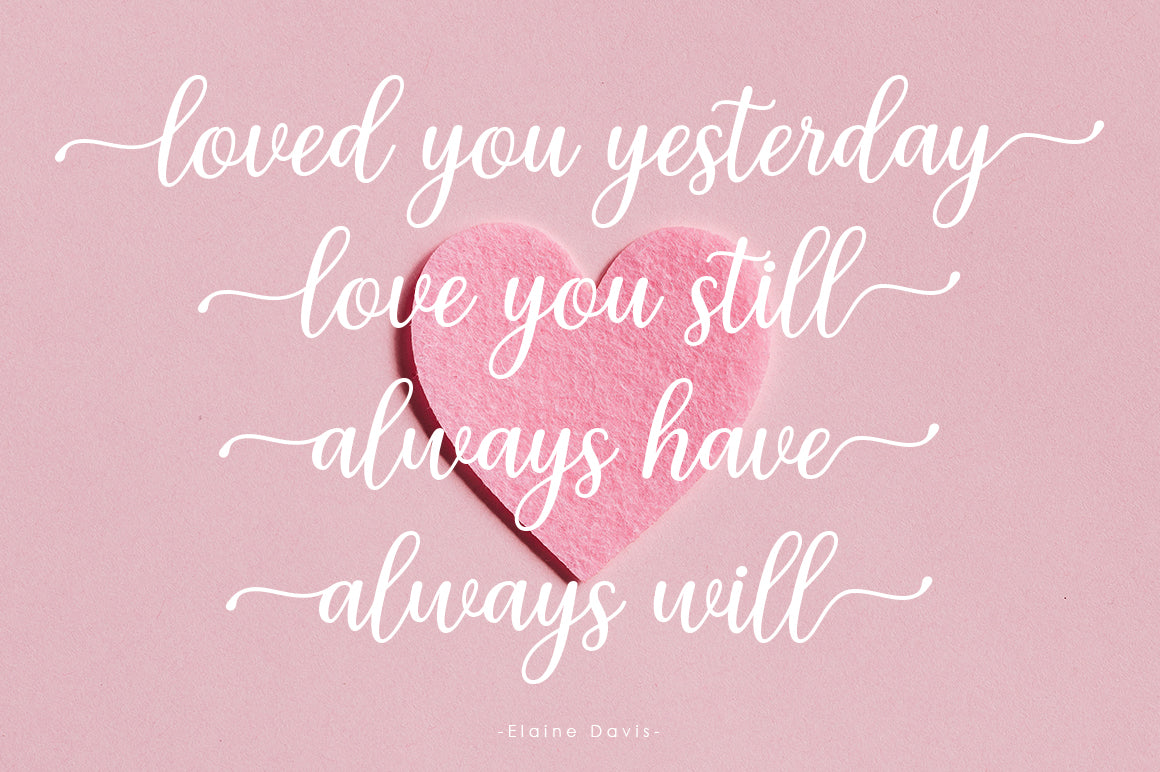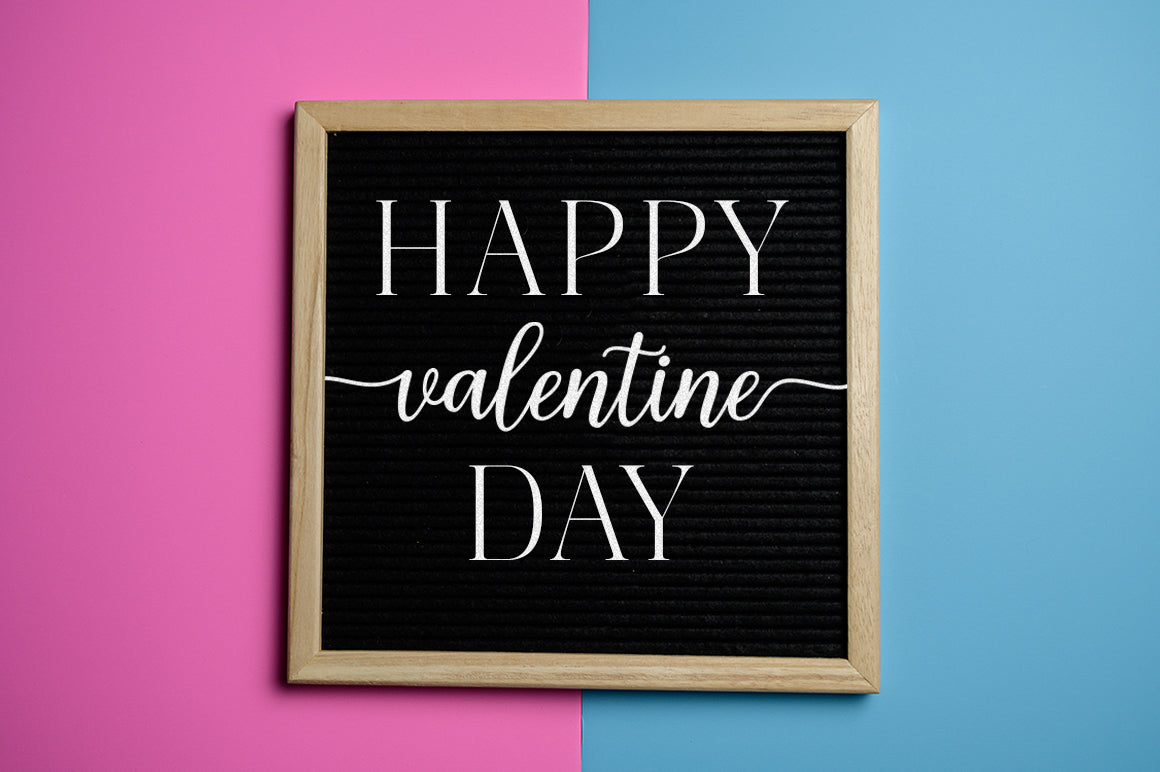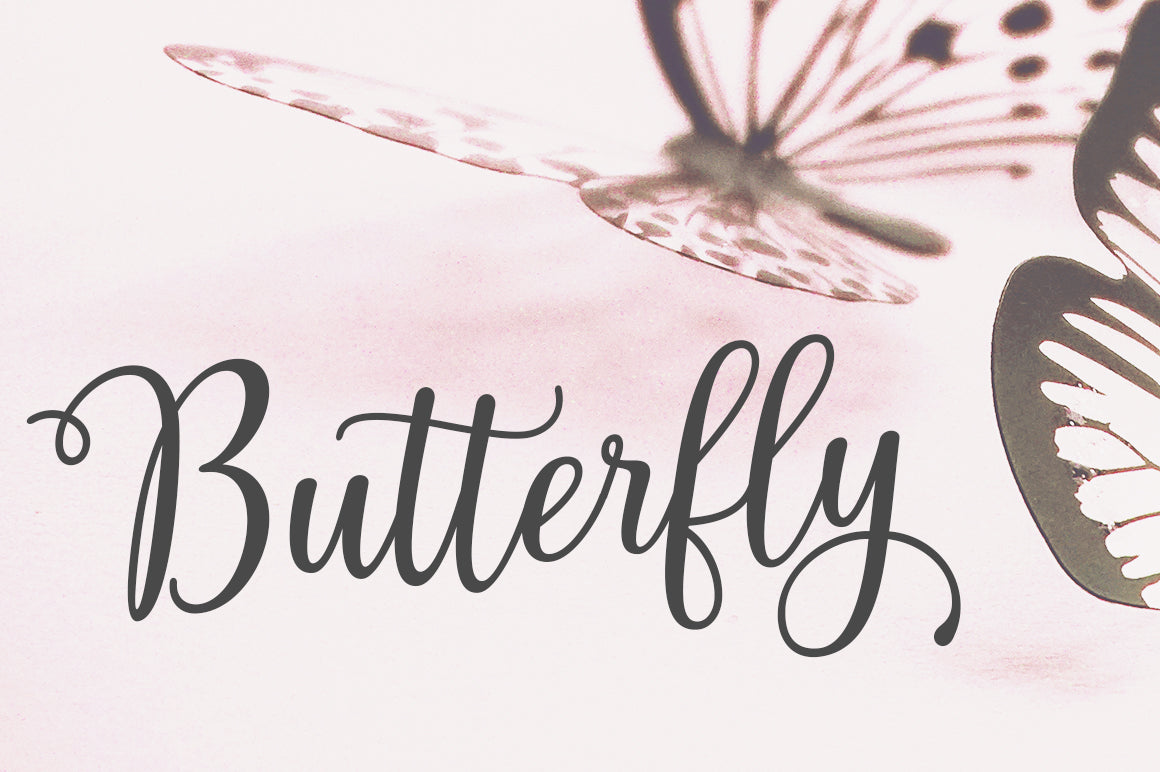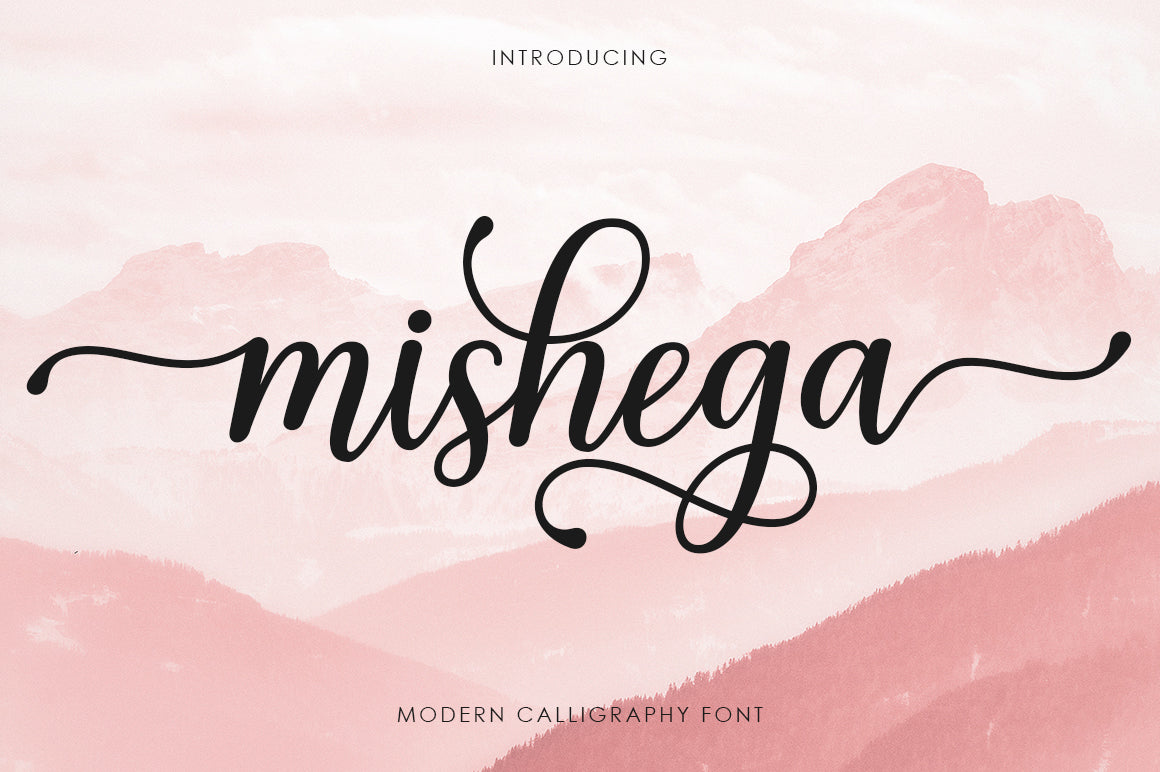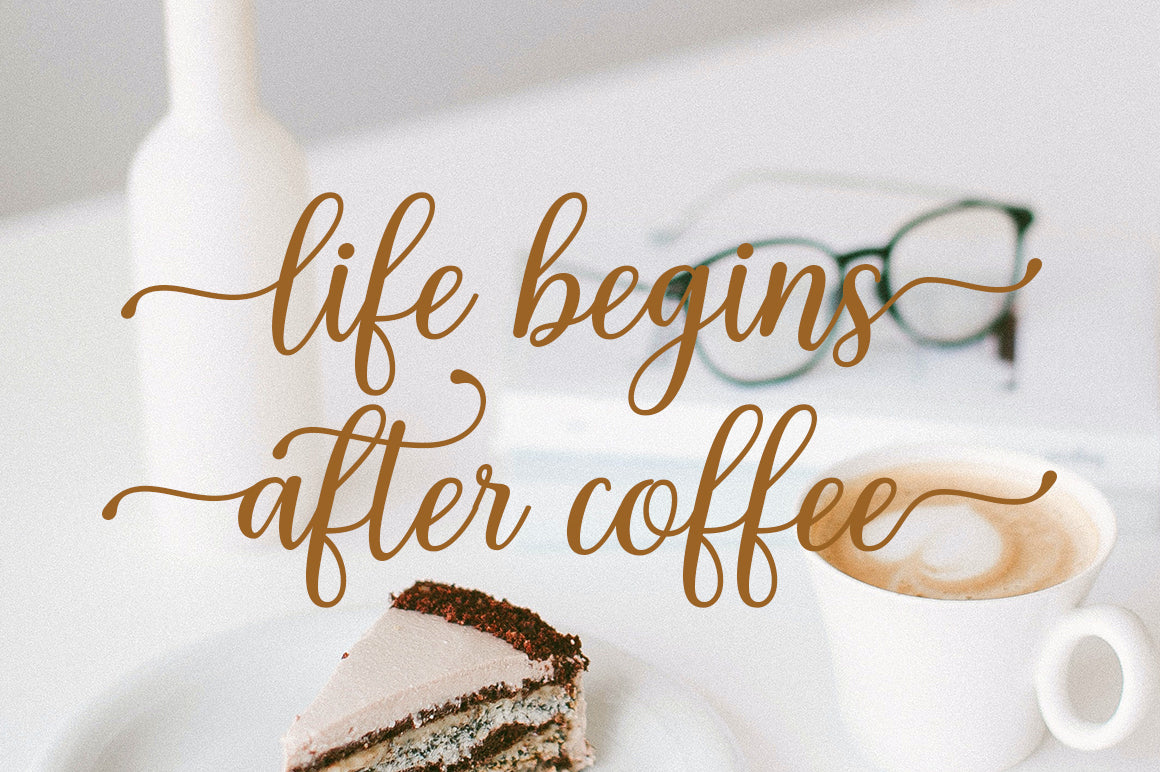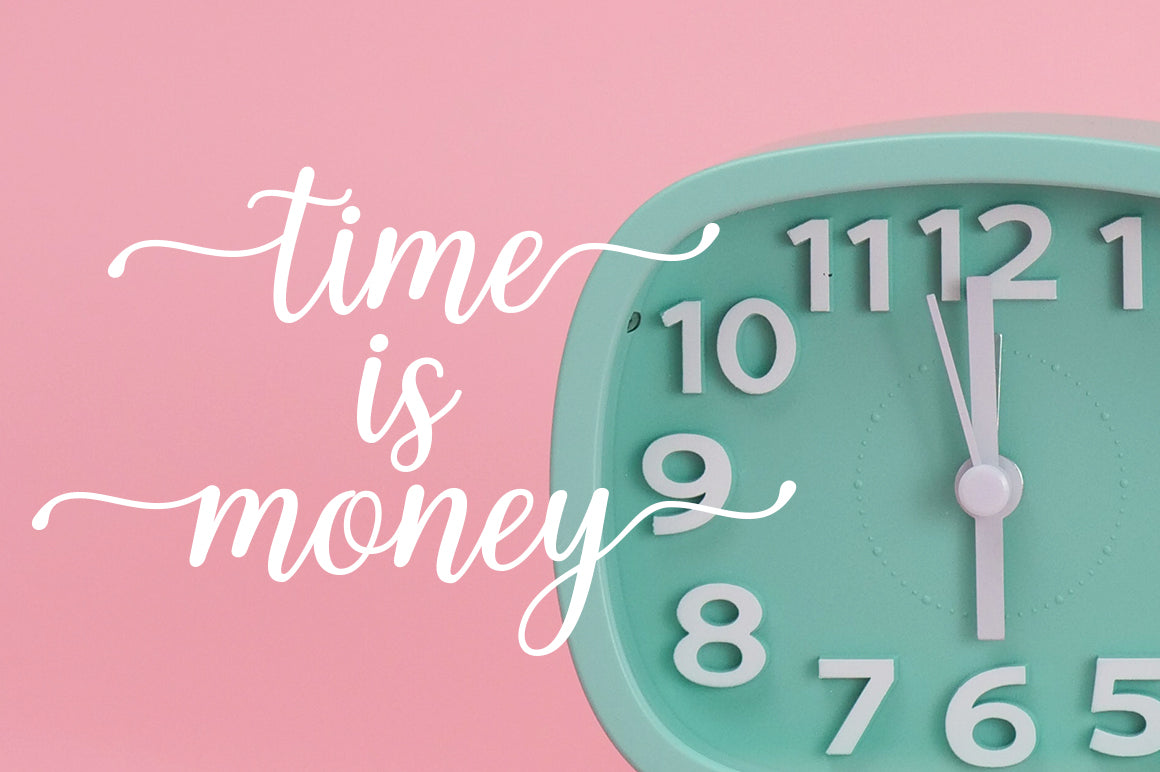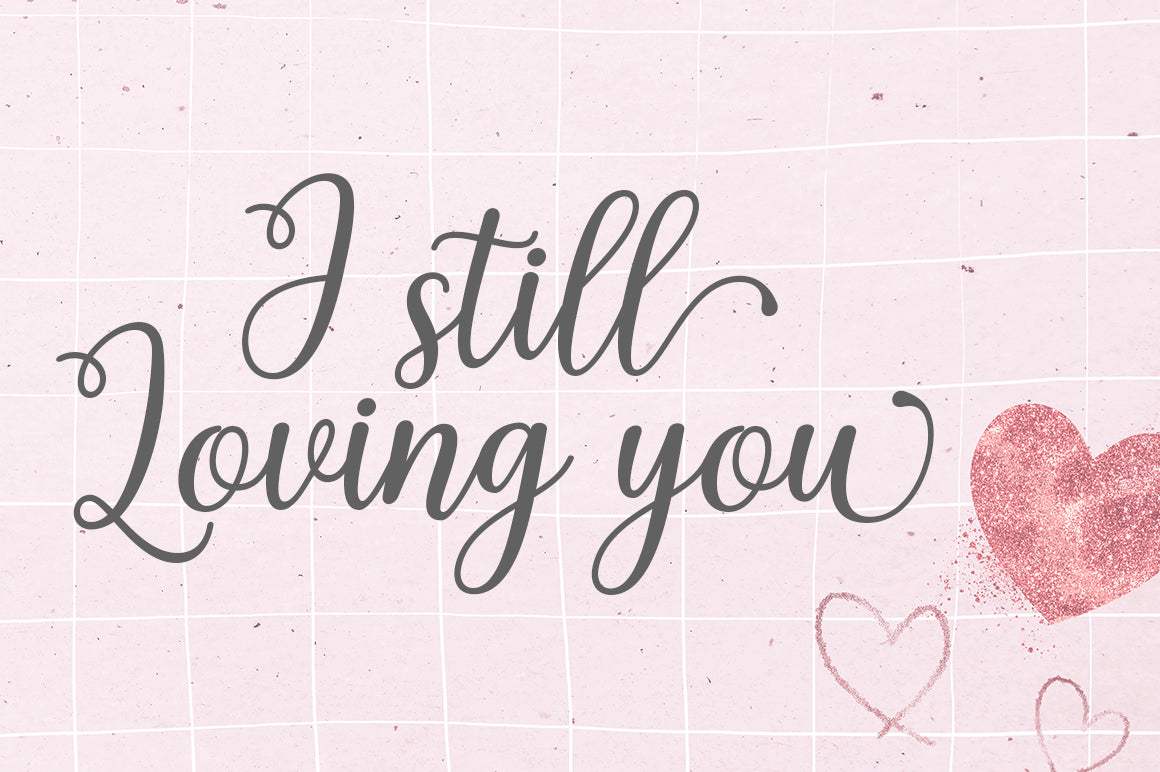
Mishega
About Mishega
INTRODUCING Mishega Script is modern calligraphy font, including Regular. This font is casual and pretty with swashes. Can used for various purposes. such as logo, product packaging, wedding invitations, branding, headlines, signage, labels, signature, book covers, posters, quotes and more. Feature: · All Uppercase and Lowercase · Alternates and Ligatures · Numbers & Symbols · Supported Languages · Substitutes and Binders · PUA Encoded Have fun using Mishega!!! I really hope you enjoy it! Feel free to follow, like and share. Thank you so much for checking out my shop!